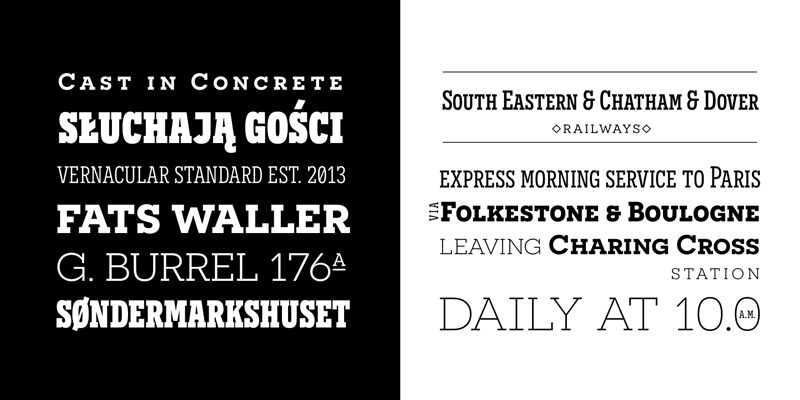
Novecento Slab Condensed Normal font by synthview is a condensed and modern free serif font. Structured, geometric, with clean lines and a classic serif influence, the font is perfect for users searching for aestheticism and beauty.
Use it to create elegant logos, shop signs, merchandise design such as badges and labels. It will fit nicely also in short paragraphs not limited to magazine articles, poster designs with old vintage touches.
OVERVIEW: Novecento Slab is the slab serif companion of Novecento Sans, an uppercase + smallcaps font family inspired on european typographic tendencies between the second half of 19th century and first half of the 20th. As the excellent French typographer Xavier Dupré said it seems to have been cast in concrete. Despite its blocky look, Novecento Slabs lettershapes are optically corrected and balanced. This font face is designed to be used mostly for headlines, visual identities or short sentences, both in big and small sizes. Novecento Slab family was spaced and kerned with love and patience; each font has between 750 and 950 group kerning pairs. This font is available for licensing in opentype and webfont format, as well as for mobile apps, ebooks and for software embedding.
OPENTYPE FEATURES:
AALT Accesses All Alternate glyphs from the Glyphs panels in Adobe Illustrator or Indesign.
CASE Sets All-Caps to activate case sensitive forms: transform lowercase letters, figures and some extra signs to Uppercase; vertically aligns math symbols and punctuation.
DNOM & NUMR Transforms 0 to 9 figures into numerators (aligned to cap height) and denominators (aligned to baseline).
FRAC Custom fractions generation feature.
SUPS Transforms 0 to 9 figures into superiors.
LOCL Romanian, Moldavian and Polish advanced diacritics support; automatic Catalan punt volant; Dutch localization for accented ij; localization for Turkish i (works also for Kazakh, Tatar, Crimean Tatar, Azeri. Just select your text language to activate the localized accents)
CALT detects German ß in an uppercase string and substitute it with its uppercase version/
SS01 / SALT Alternate Q letter shape for ultra narrow line heights. Implemented both as Stylistic Set n°1 (ss01) and Stylistic Alternate (salt) to maximize compatibility between applications.
SS02 / SALT Alternate N letter shape. Implemented both as Stylistic Set n°2 (ss02) and Stylistic Alternate (salt) to maximize compatibility between applications.
SS03 / SALT Alternate I letter shape. Implemented both as Stylistic Set n°3 (ss03) and Stylistic Alternate (salt) to maximize compatibility between applications.
SS04 / SALT Alternate J letter shape. Implemented both as Stylistic Set n°4 (ss04) and Stylistic Alternate (salt) to maximize compatibility between applications.
SS05 / SALT Alternate Y letter shape. Implemented both as Stylistic Set n°5 (ss05) and Stylistic Alternate (salt) to maximize compatibility between applications.
LNUM/ONUM Lining / oldstyle figures; LNUM transforms numbers and monetary symbols in Uppercase; ONUM do the opposite (default figures are ONUM).
TNUM / PNUM Tabular/ proportional figures. Figures (numbers, monetary and math symbols) of same width always align, in spite of their weight.
ZERO / SALT Slashed zero alternate glyph. Works with tabular and proportional figures, numerators, denominators and superiors. Implemented both as Zero as Salt to maximize compatibility between applications.